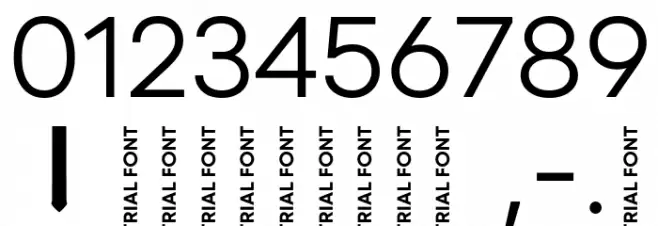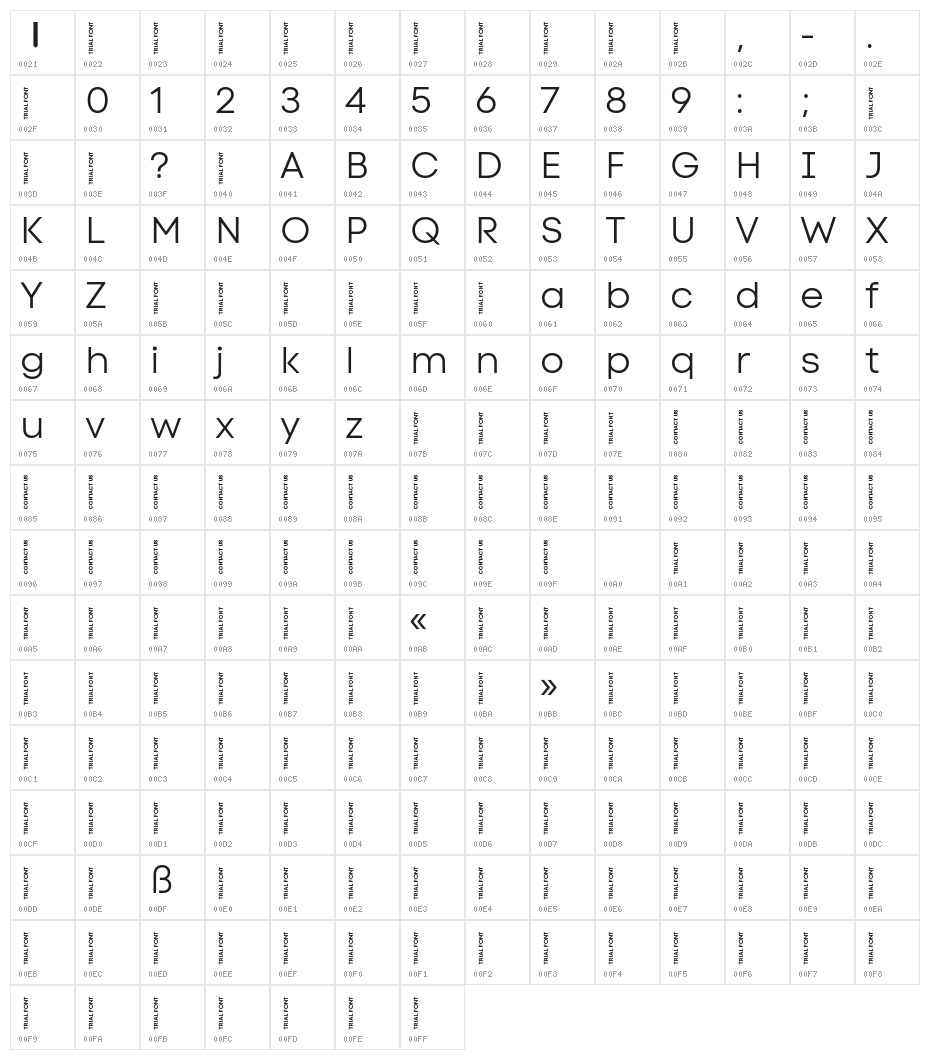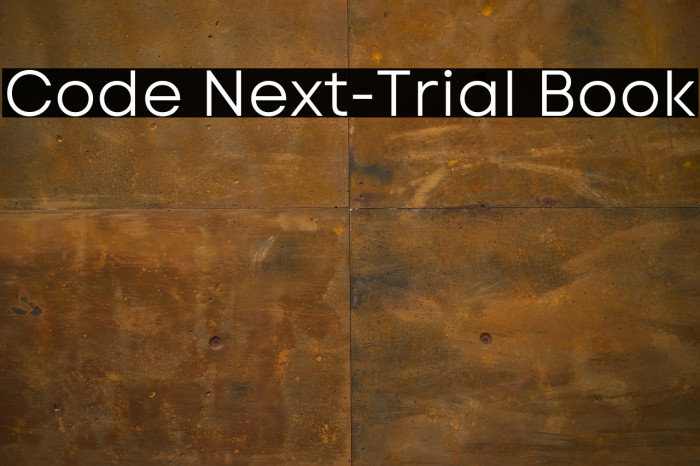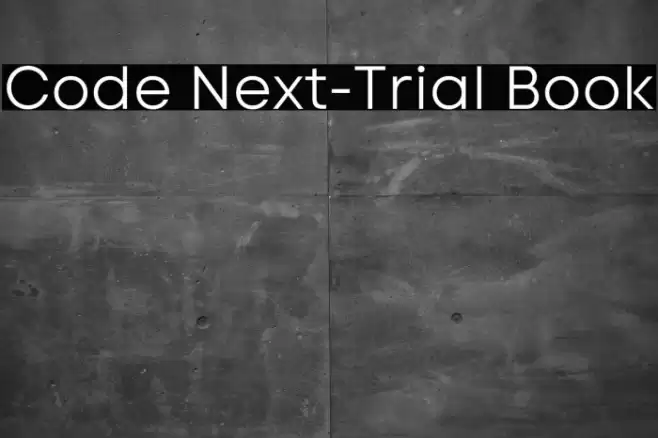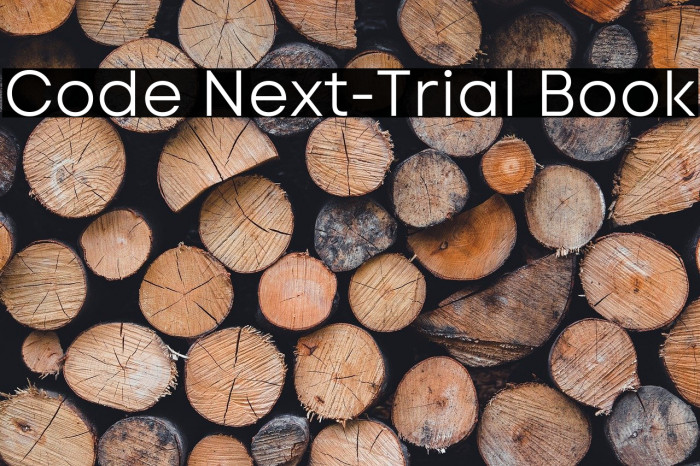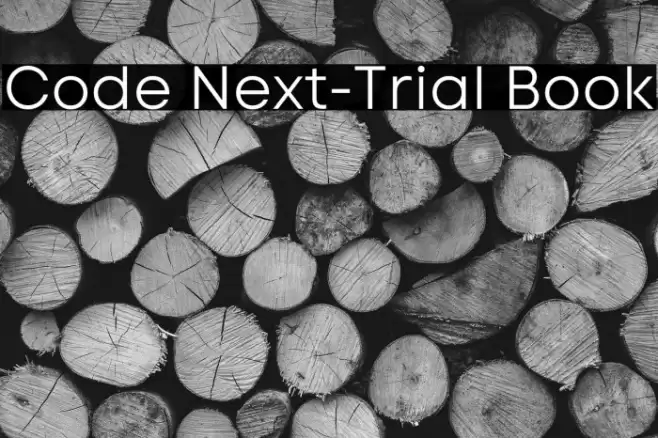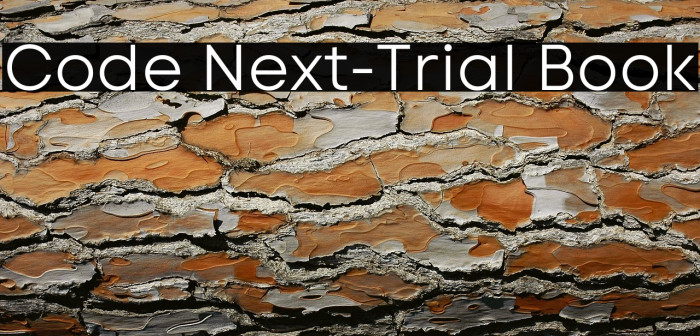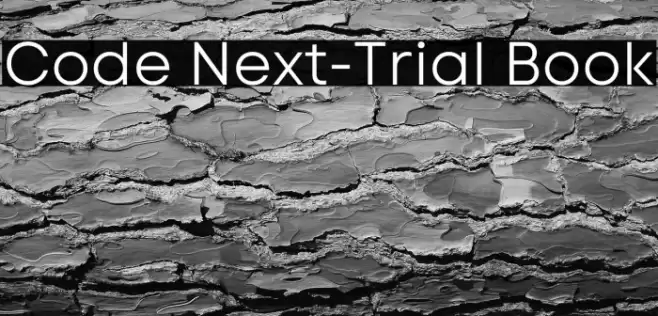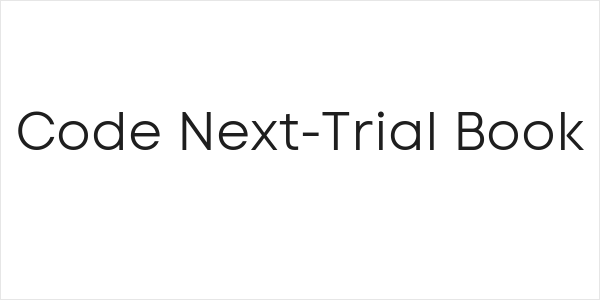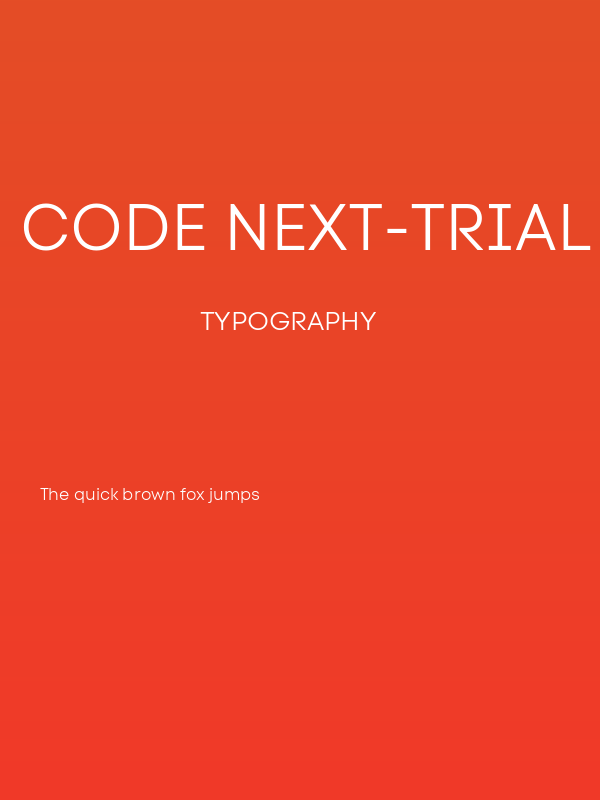
Code Next-Trial Book Font
Code Next-Trial Book Description
This font features a clean and modern sans-serif style with a geometric structure. The characters are evenly spaced, providing a balanced and harmonious appearance. The uppercase letters are bold and assertive, while the lowercase letters maintain a consistent weight, offering a uniform look across different text sizes. The numerals are clear and legible, making them suitable for various applications. Special characters are designed with simplicity in mind, ensuring they integrate seamlessly with the rest of the typeface. Overall, this font exudes a contemporary and professional vibe, making it versatile for multiple design contexts.